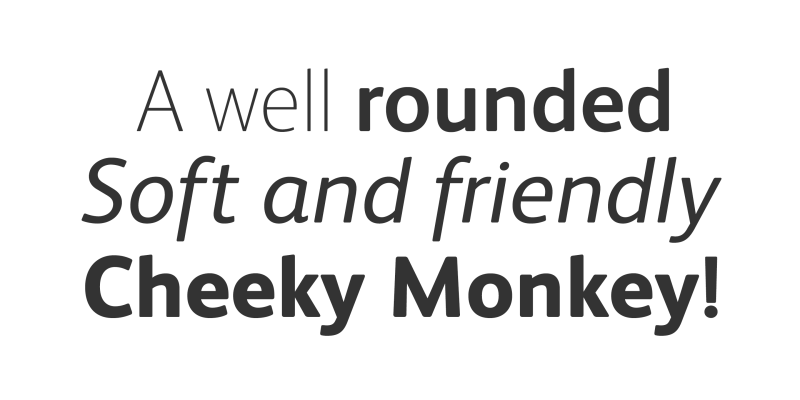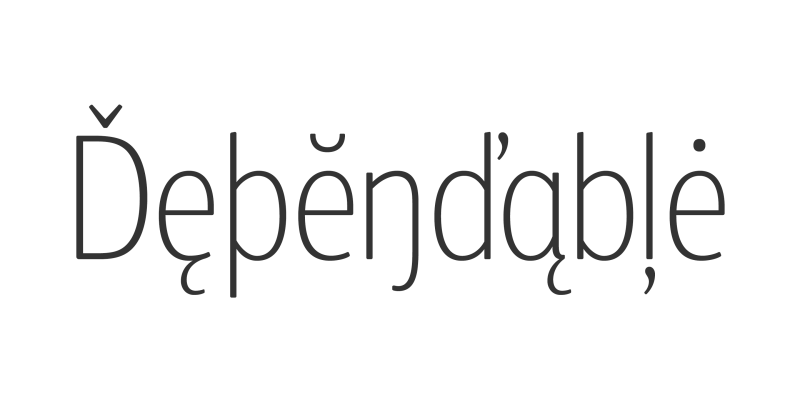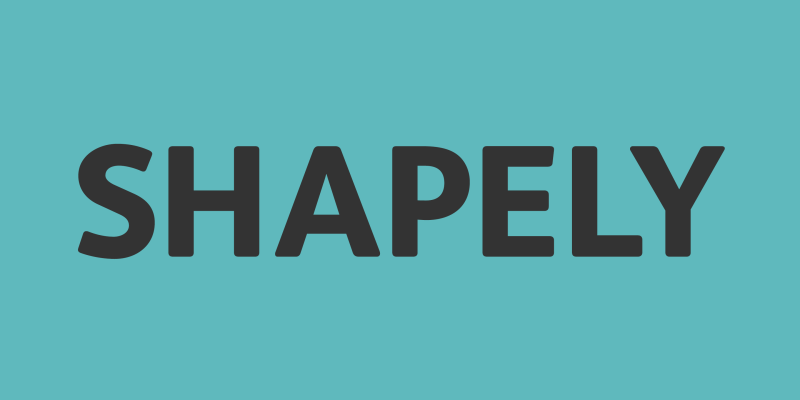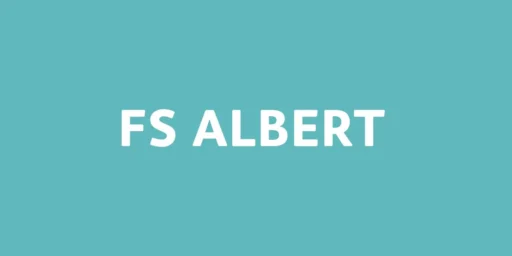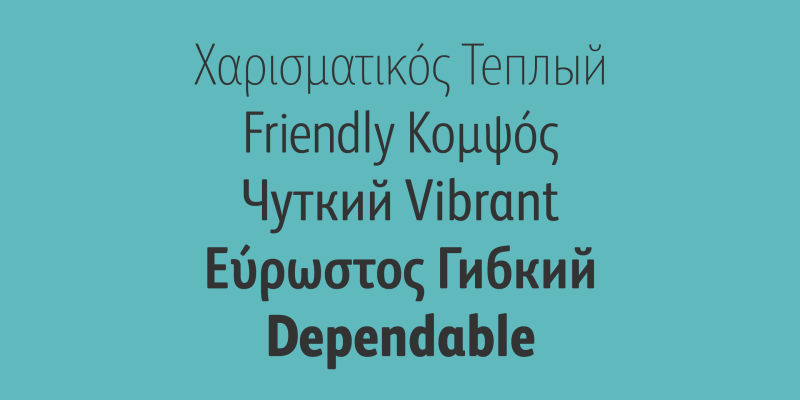
FS Albert Font
FS Albert is a contemporary font created by the famous type foundry Fontsmith. It features a beautiful, versatile design appropriate for numerous design applications. It…
FS Albert is a contemporary font created by the famous type foundry Fontsmith. It features a beautiful, versatile design appropriate for numerous design applications. It has similar features to FS Me.
FS Albert is a modernized version of the principles of Swiss typography as interpreted by the work of Swiss type designer Albert Boton. This font perfectly blends traditional proportions and a modern look, making it timeless and trendy.
One of FS Albert’s characteristic features is a balanced x-height. This font can be read in different sizes, making it suitable for body text and display uses. This allows designers to compose their typographic works flexibly.
FS Albert’s weights and styles vary from light to bold and include italic variants. This broad spectrum allows designers to make various typographic axes and visual differences.
Aside from its standard character set, this font caters to several languages and has different OpenType features, including ligatures, stylistic alternates, and fractions. All these attributes consequently increase the font’s typographic potential, enabling designers to develop unique and sophisticated typography.
Whether the application is branding, editorial design, signage, or digital interfaces, It has an air of sophistication and professionalism. With clean lines, balanced proportions, and attention to detail, it is a practical and dependable option for designers searching for a modern but classic typeface.
Where FS Albert Font works best
FS Albert Font stays legible at small sizes, which makes it a strong choice for navigation, buttons and dashboards in web design and app interfaces.
Clean sans serifs like FS Albert Font are the default language of SaaS, fintech and product branding.
What is FS Albert Font good for?